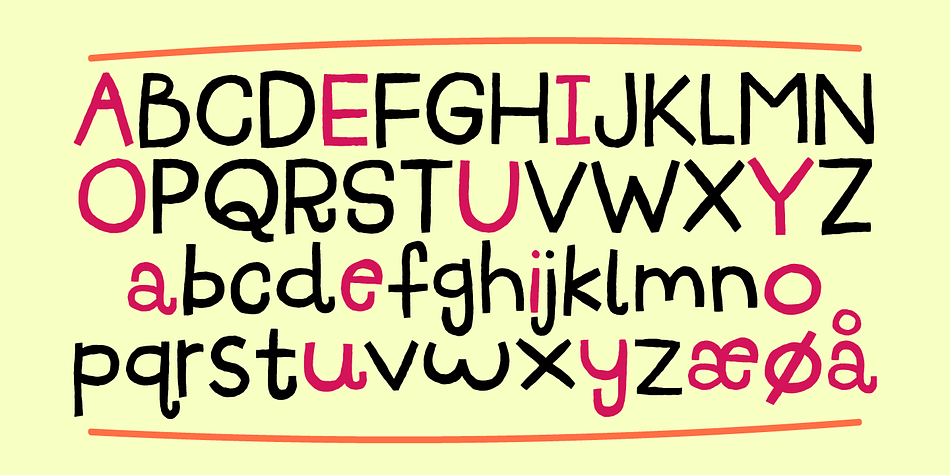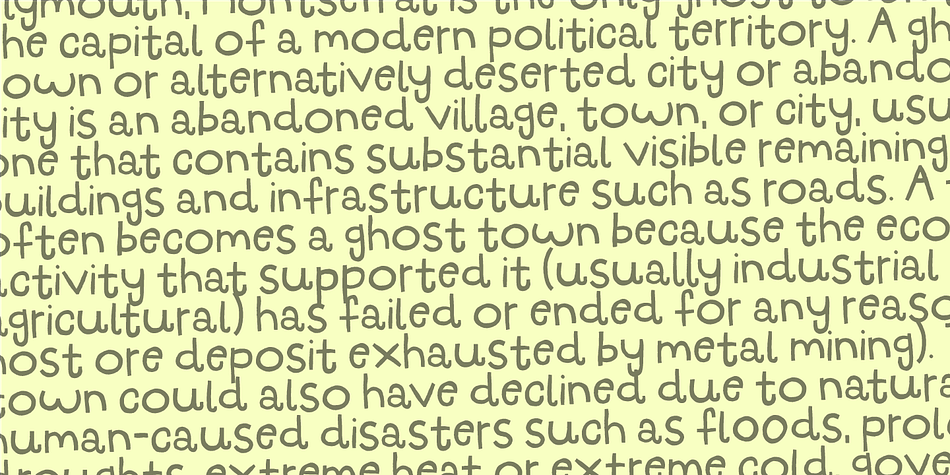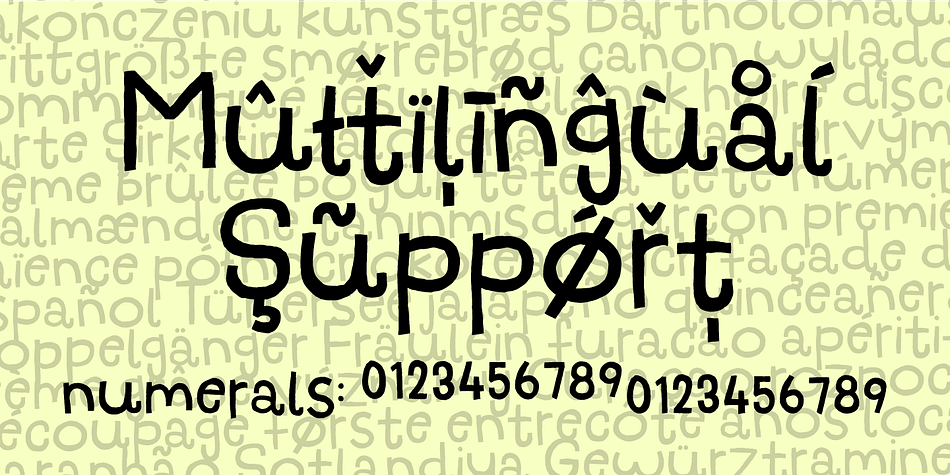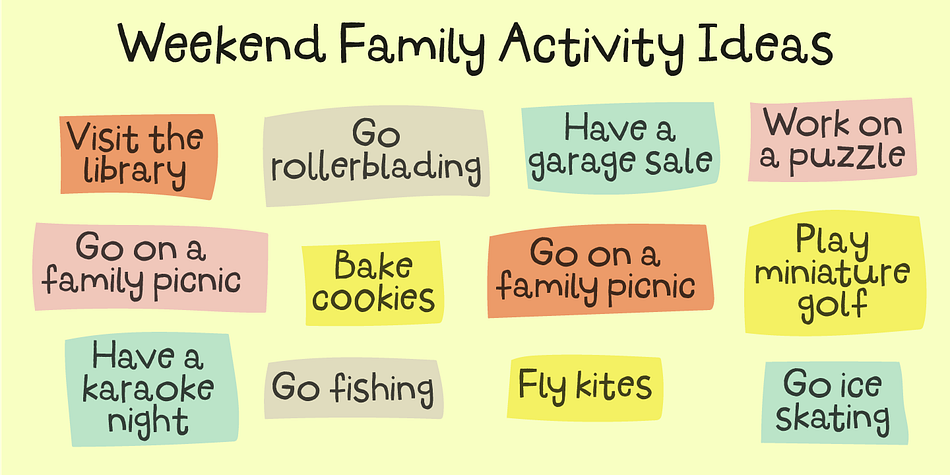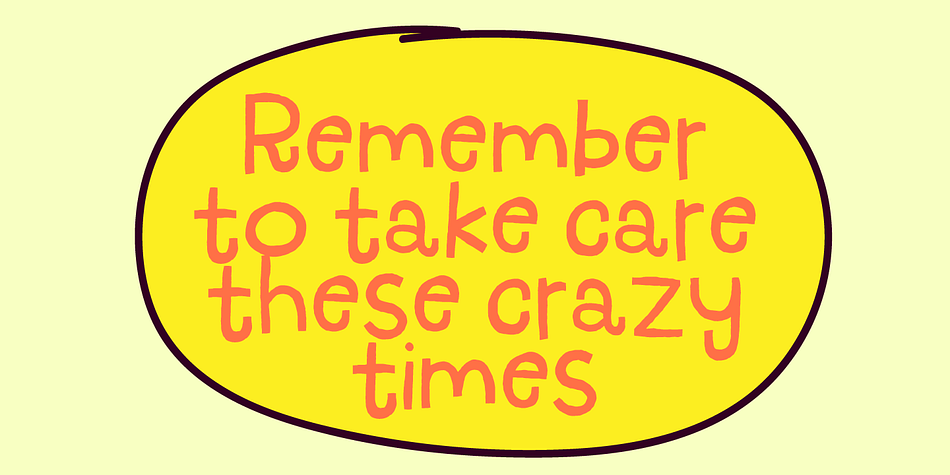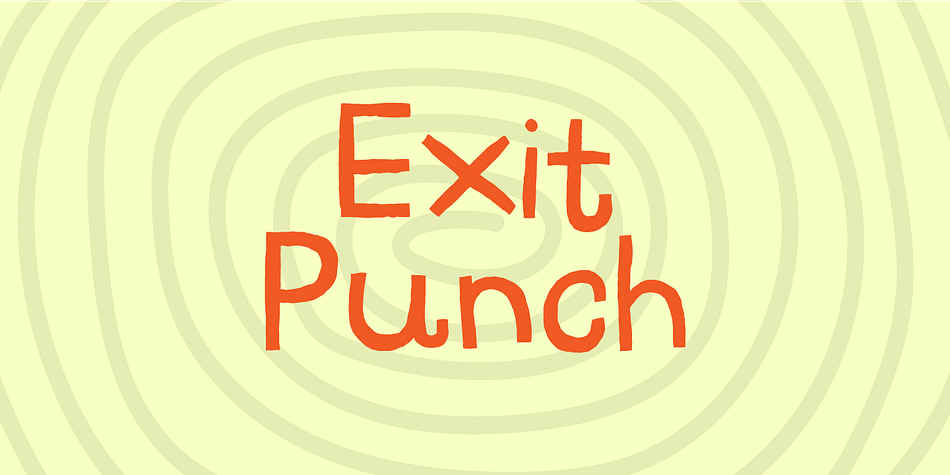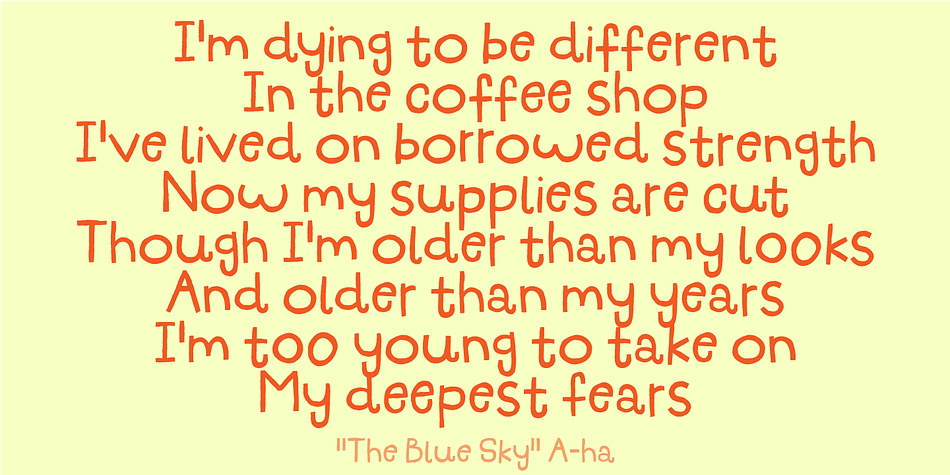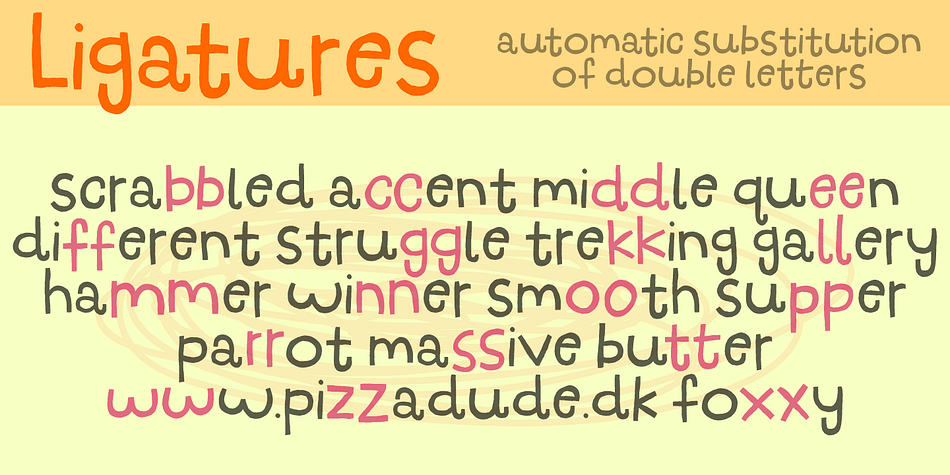
Exit Punch
Designed by Jakob Fischer, Exit Punch is a hand display font family. This typeface has two styles and was published by Bogstav.
What exactly is an exit punch? I have no clue! :) I named the font after a wordplay with random words, and somehow I found the name suited the font perfect. The letters are awkward and unpredictable in a legible but playful manner. I’ve added ligatures for the most common double letters, such as bb, cc, dd etc.